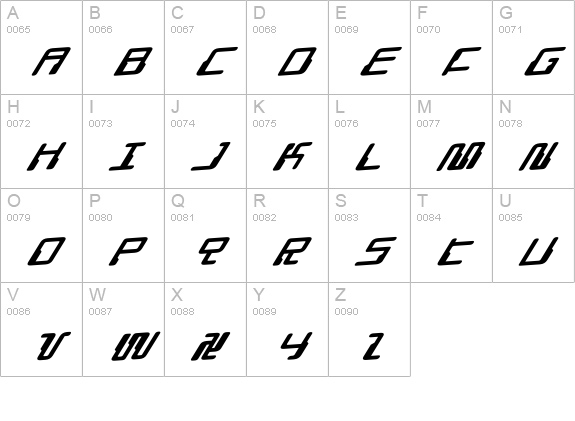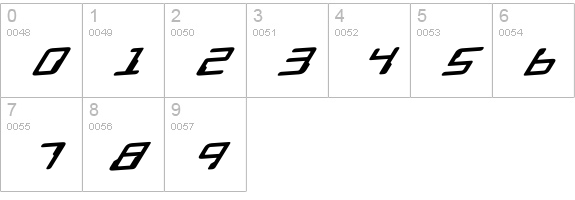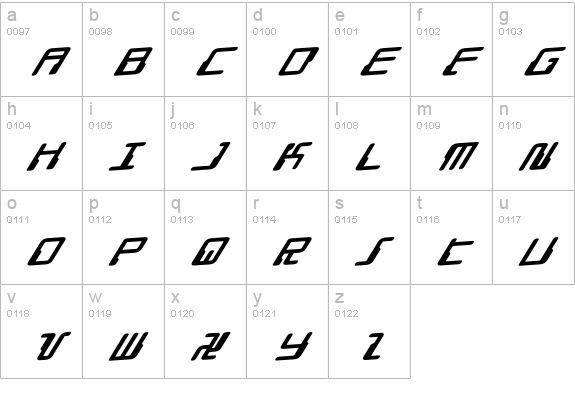
Droid Lover Expanded Rotalic is a distinctive, extended-width variant in the Droid typeface family \xE2\x80\x94 well suited to design and typography projects.
Droid Lover Expanded Rotalic font is a captivating and modern typeface that exudes sophistication and creativity. With its sleek design and elegant curves, this font is perfect for adding a touch of style to any project. The expanded and roitalic style of Droid Lover gives it a unique and eye-catching look that will make your designs stand out. Whether you're designing a poster, logo, or website, Droid Lover Expanded Rotalic font is sure to make a lasting impression. And the best part? It's completely free to download at FontsMarket.com! So go ahead and elevate your design projects with this versatile and stylish font today.